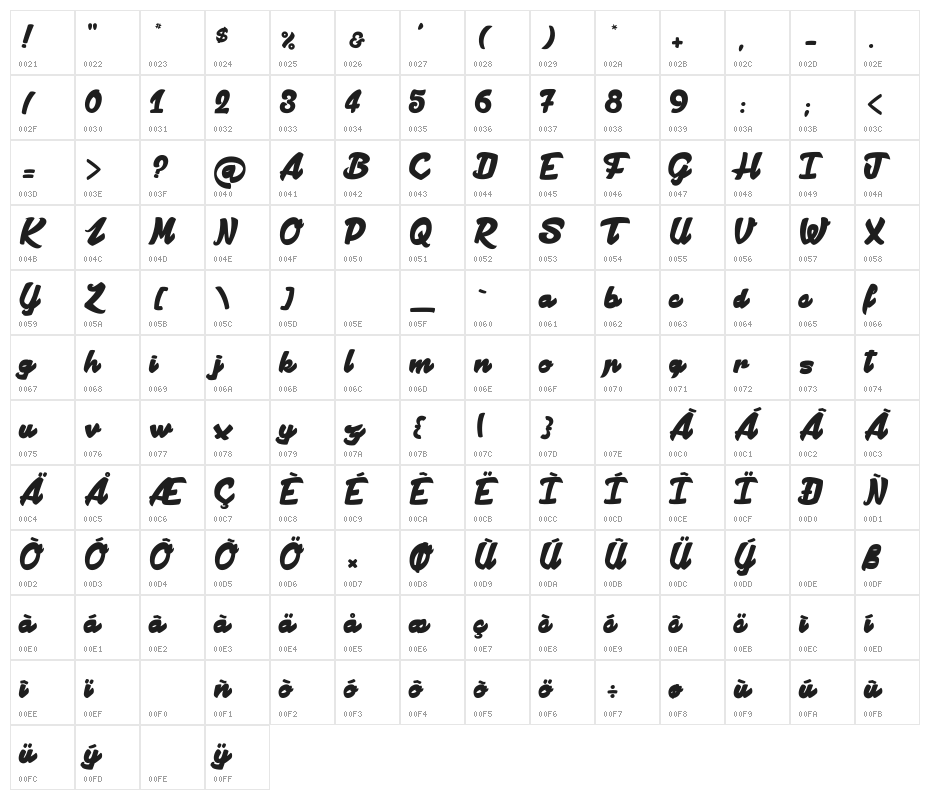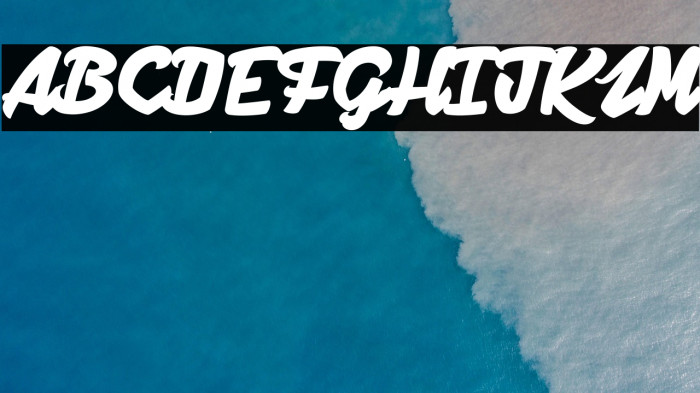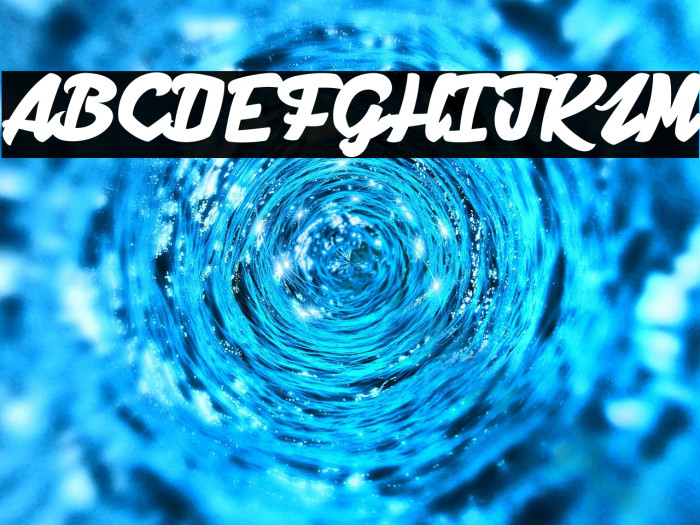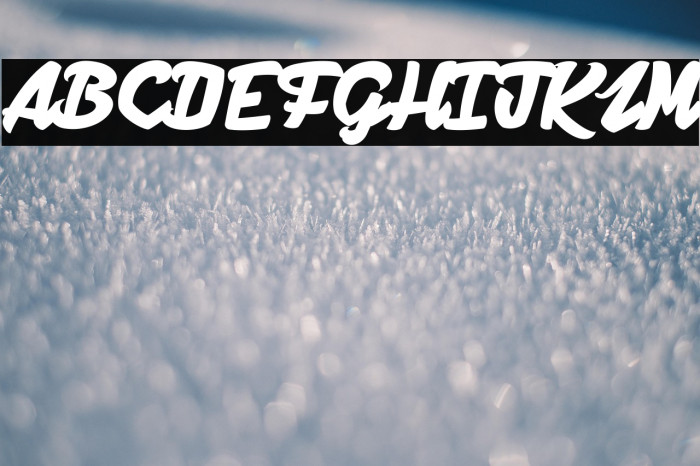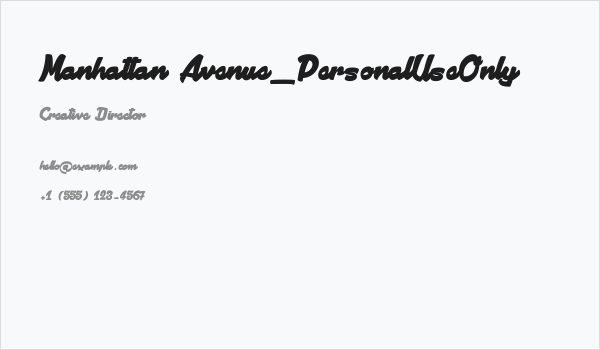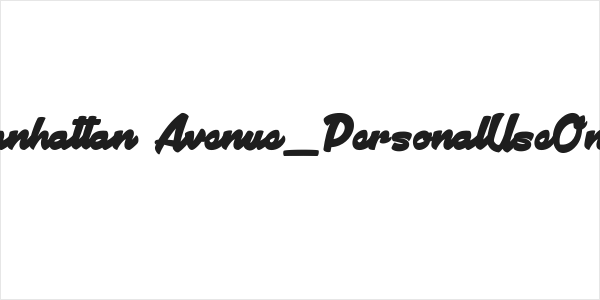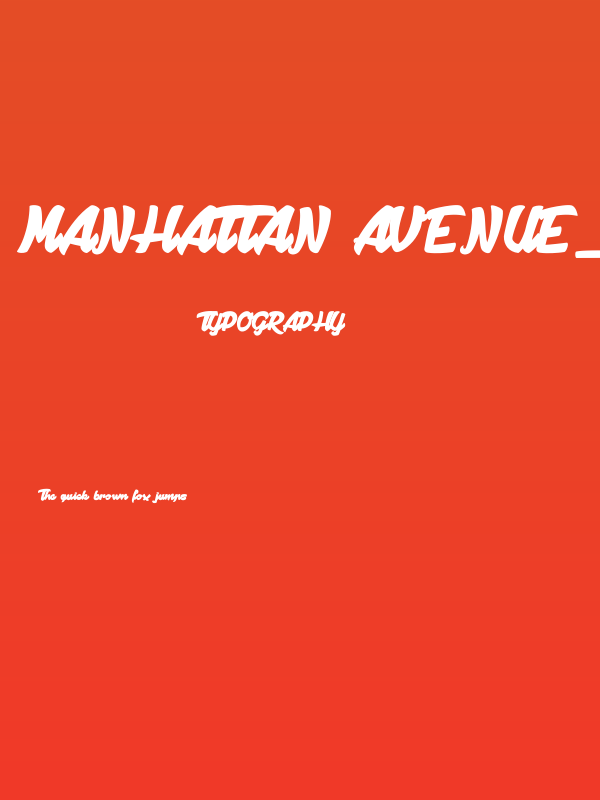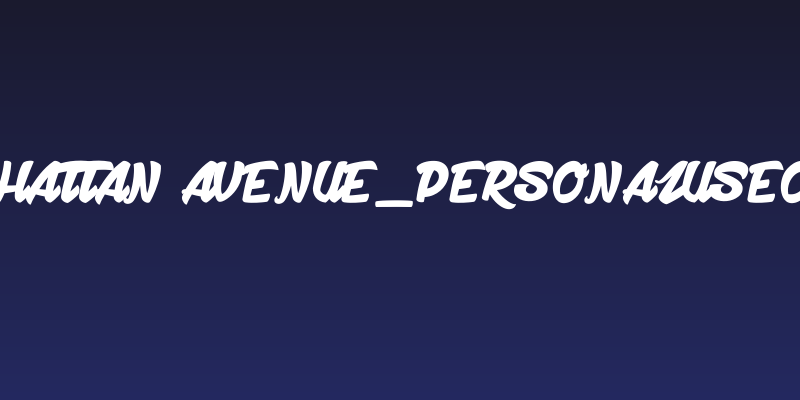
Manhattan Avenue_PersonalUseOnly Font
Manhattan Avenue_PersonalUseOnly Description
This font features a bold and dynamic script style with a strong presence. The characters are connected, giving it a fluid and continuous look, reminiscent of handwriting. The strokes are thick and rounded, adding a sense of warmth and friendliness. The uppercase letters are slightly more angular, providing a nice contrast to the more rounded lowercase letters. The numbers and special characters maintain the same bold and expressive style, ensuring consistency throughout. This font is ideal for making a statement and capturing attention with its energetic and lively appearance.
| Proposed Projects | Ideal for branding, logos, posters, and any design requiring a bold, expressive touch. |